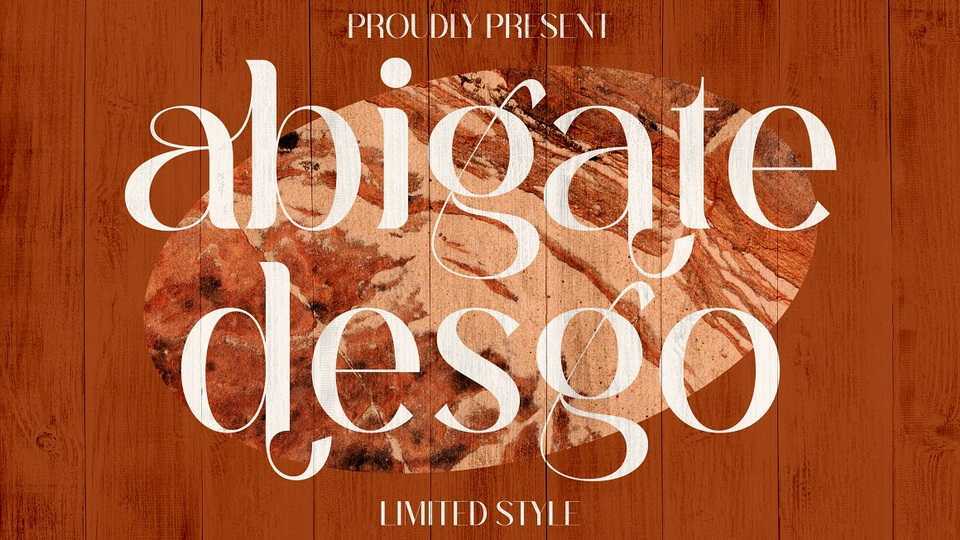
Download Abigate Desgo, font, a trendy, elegant and stylish serif typeface. Abigate Desgo font maintains its classy calligraphic influences while feeling contemporary and fresh.